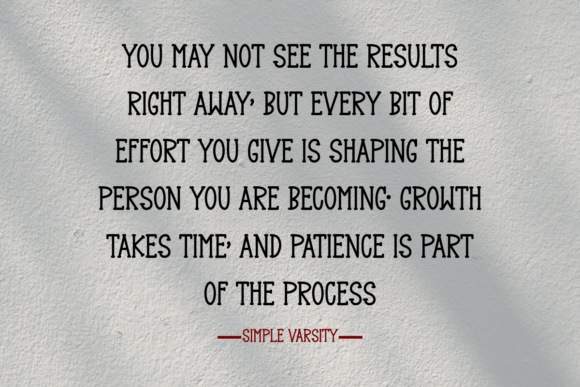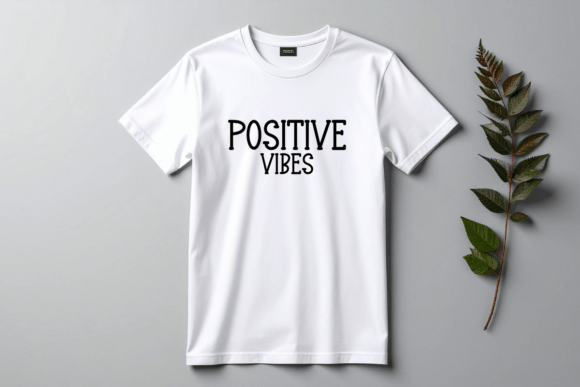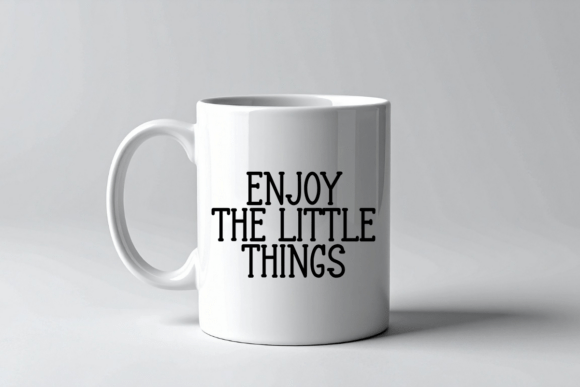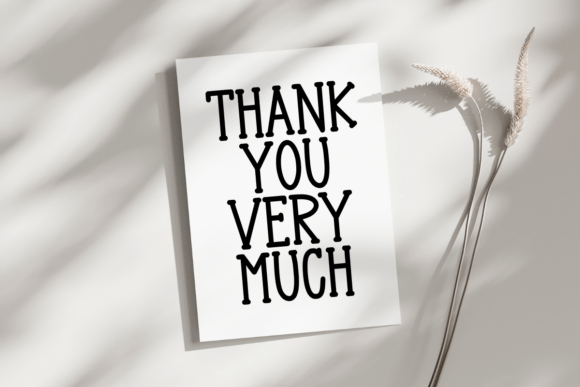
Introduction to Simple Varsity Font
Simple Varsity is a fancy handwriting font that has a cute style.
Great for quotes, stickers, mugs, tumblers, sublimation, and more .